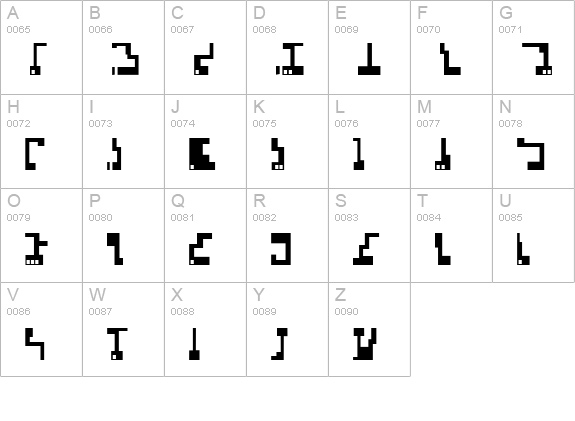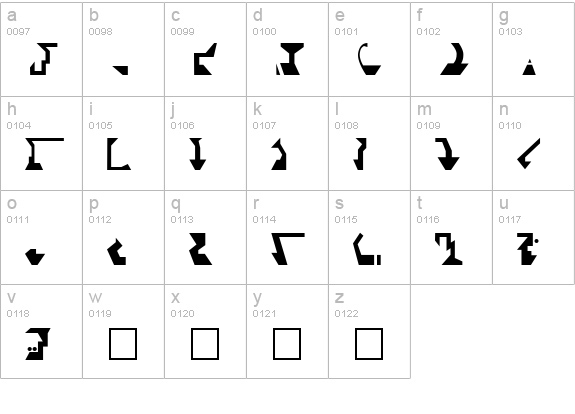
Cardassian - StarTrek canon based Font Details
The Cardassian font, inspired by the iconic Star Trek canon, is a stylish and unique typeface that captures the essence of the Cardassian culture. With its sharp angles and sleek design, this font is perfect for conveying authority and sophistication in your projects. Whether you're a fan of the Star Trek series or simply appreciate the elegant aesthetic of the Cardassian language, this font is sure to make a bold statement. Best of all, the Cardassian font is available for free download at FontsMarket.com. Now you can easily incorporate this distinctive typeface into your designs, presentations, and creative projects without any cost. Download the Cardassian font today and let your creativity soar with this exceptional addition to your font collection.